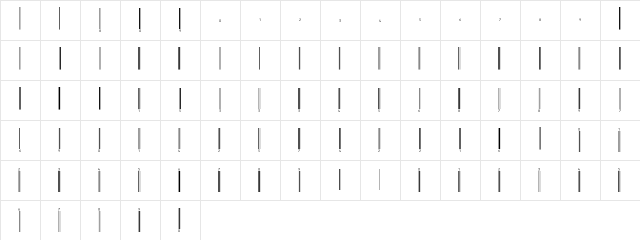
Code-EAN Normal Font Preview
Code-EAN Normal
Design Context for Code-EAN Typeface
Code-EAN uses fixed-width spacing throughout, giving it the structured, systematic character associated with coding environments and technical documentation.
A natural fit for code editors, technical documentation, developer-focused branding, and terminal-inspired UI.
Pro Tip: Pair Code-EAN with a proportional sans for UI contexts where code-style labels and regular body copy need to coexist.